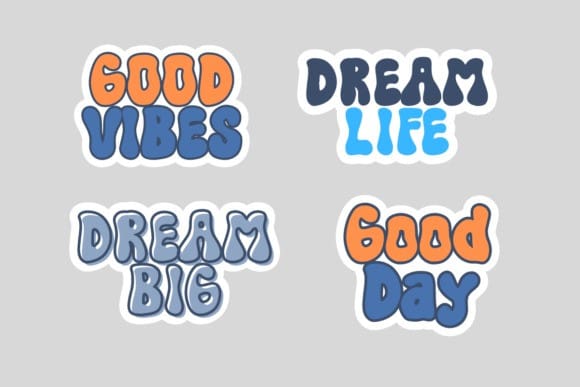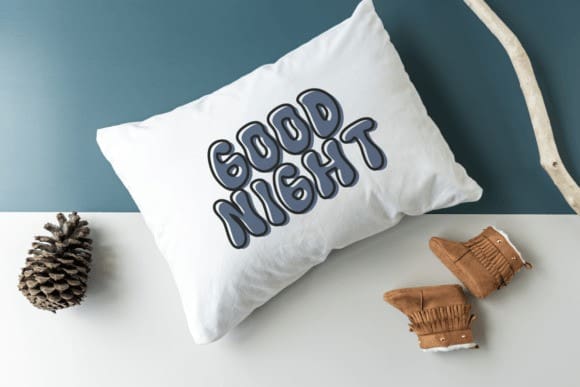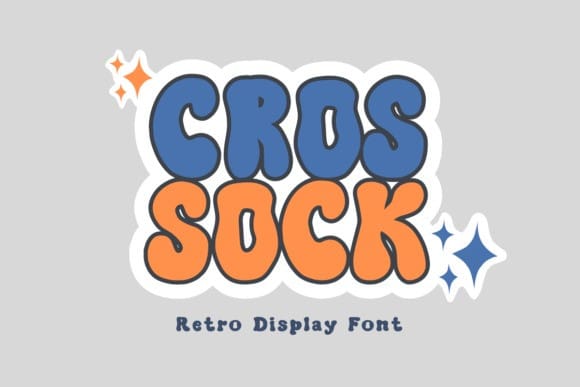
Crossock Display Font
Crossock Display Font is a font that feels nostalgic and delivers a great retro vintage aesthetic. Expertly designed to become a true favorite, this font has the potential to take your every creative idea to the highest level.